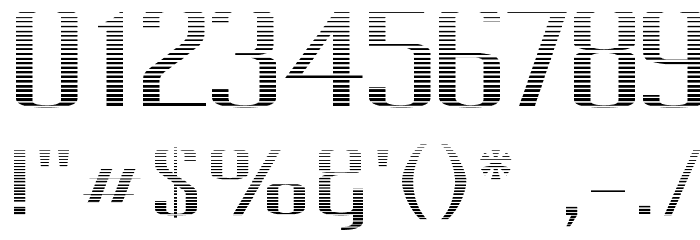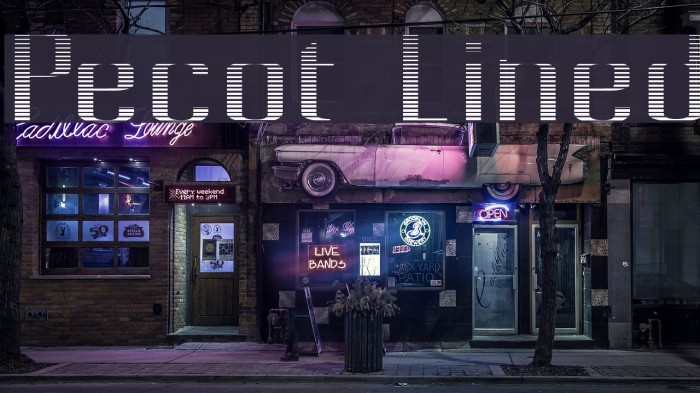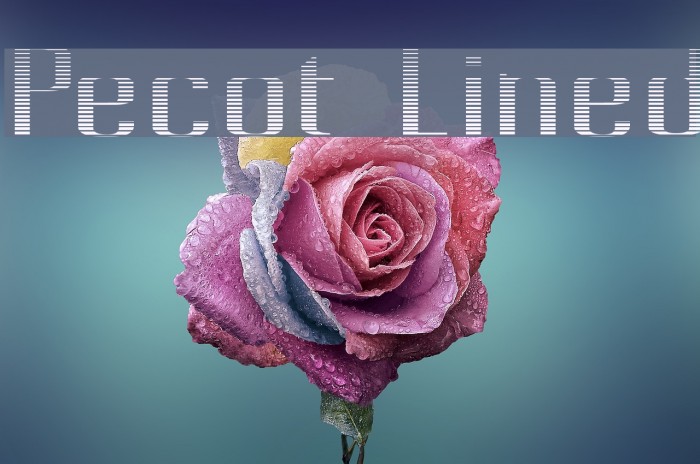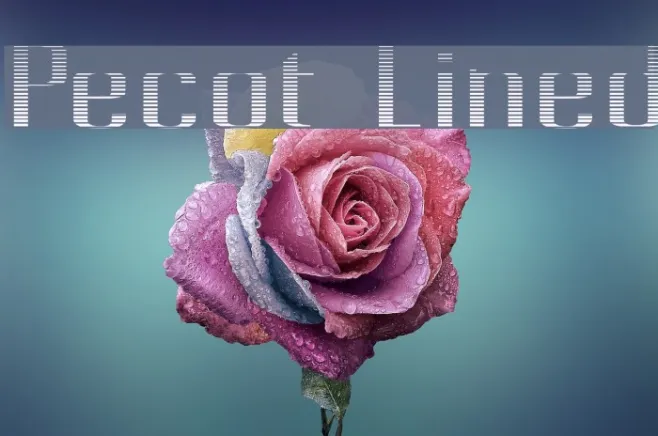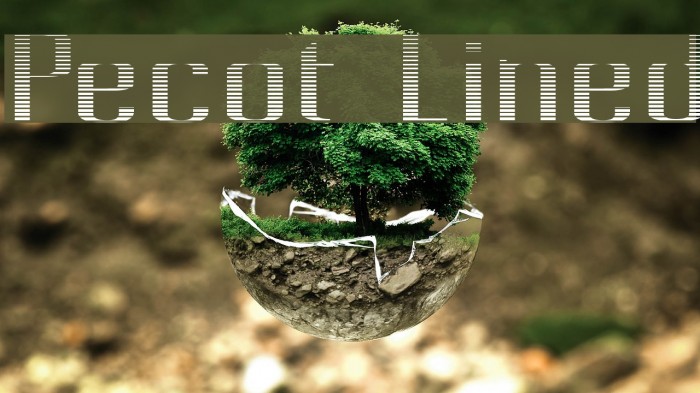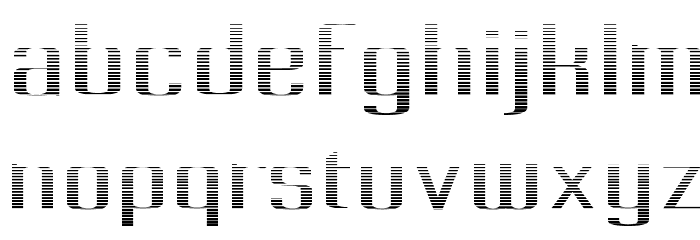
Pecot Lined Font
This font features a unique lined pattern that creates a visually striking effect. Each character is composed of horizontal lines that vary in thickness, giving the font a dynamic and textured appearance. The uppercase and lowercase letters maintain a consistent style, with clean, geometric shapes that are both modern and bold. The numbers and special characters follow the same lined pattern, ensuring a cohesive look across all elements. This font's distinct style makes it ideal for projects that require a strong visual impact.
A modern, lined font with a bold, geometric style.
• Proposed Projects: Ideal for branding, posters, and headlines where a strong visual impact is desired.